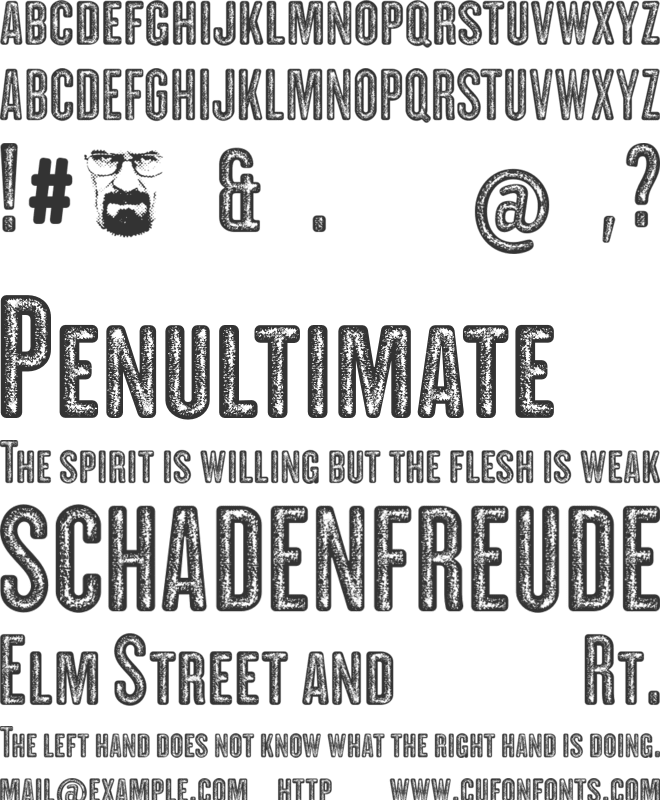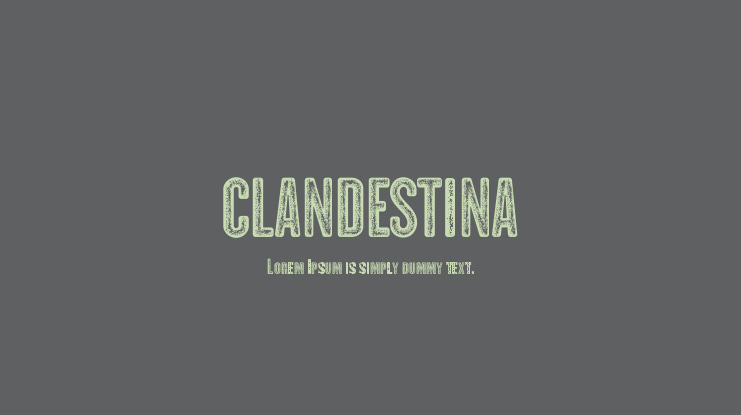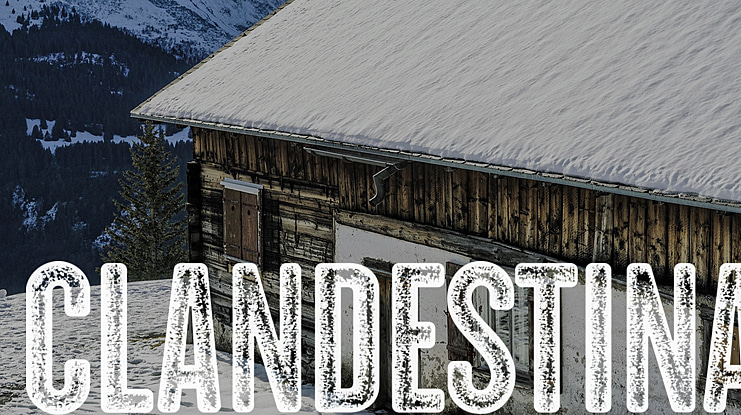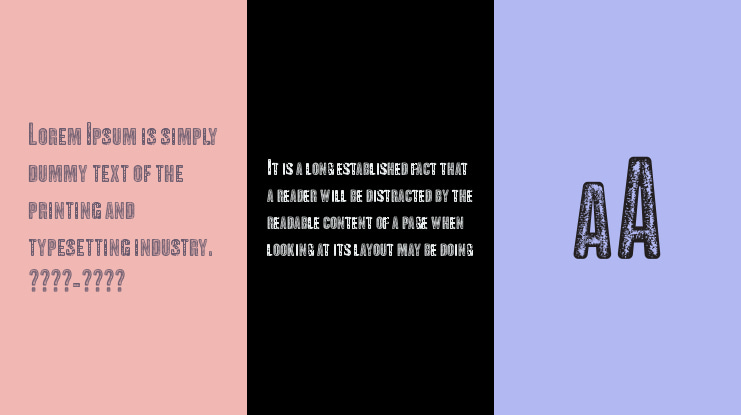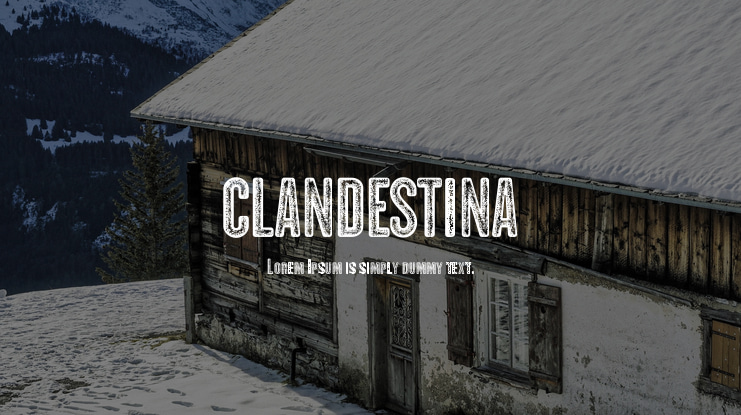
CLANDESTINA Font
A grotesque font, small caps, extra condensed and eroded.
2 clandestine typographies, solid & eroded (commercial version) derived from my previous fonts sans serif H.H. Samuel.
Include the Bitcoin symbol: b# (Ligatures)